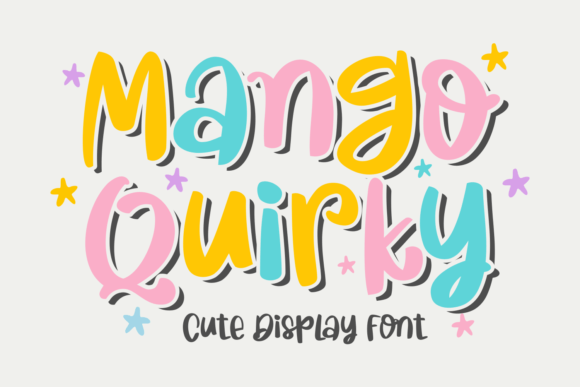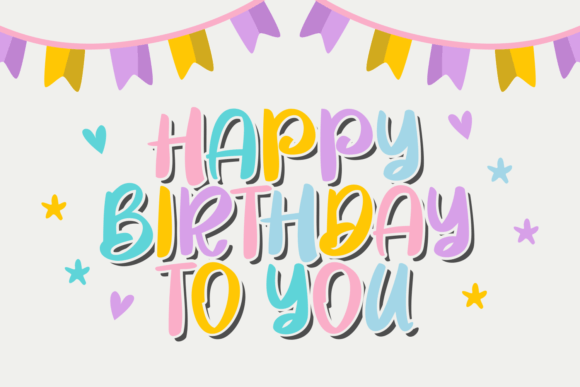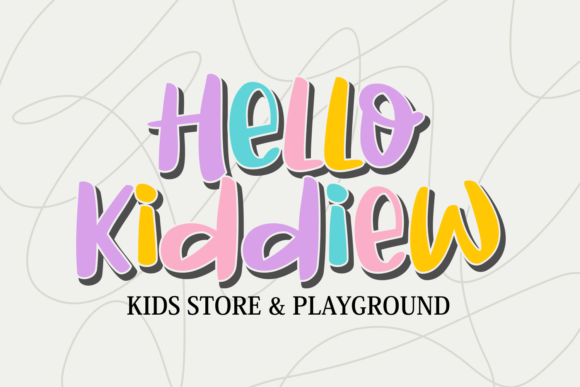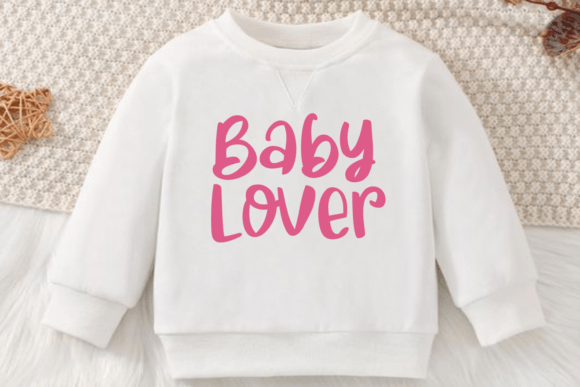
Mango Quirky Font
About the Mango Quirky Font
Elevate your designs with Mango Quirky Font, a font that combines sophistication with readability. Mango Quirky is an adorable handwritten font that adds a playful touch to your projects. With its cute and whimsical style, it brings a sense of fun to any design. Perfect for invitations, cards, and more, Mango Quirky adds a charming flair to your text with its unique handwritten feel.
Mango Quirky’s playful energy makes it ideal for projects requiring a lighthearted and approachable feel. It shines in headlines, short text blocks on invitations, greeting cards, and social media posts. However, its informal nature makes it less suitable for body text, lengthy paragraphs, or applications demanding high readability, such as UI elements or website copy.
Pairing Mango Quirky effectively requires a contrasting yet harmonious partner. A clean sans-serif like Open Sans or Lato provides a strong visual balance, while a more geometric sans-serif such as Montserrat adds a modern edge. For a touch of elegance, consider pairing it with a delicate serif typeface like Playfair Display.
Its core personality is undeniably friendly and whimsical; it’s best suited for brands targeting a young, playful audience, or projects that need a touch of childlike charm and approachability.